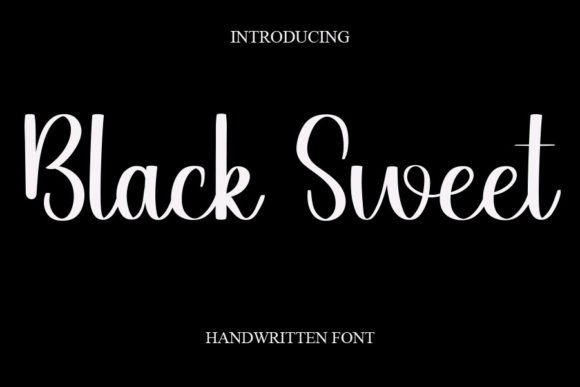
The Sweet Spot: Discovering the Charm of Black Sweet Font
I’ll never forget the time I was working on a craft project, pouring my heart and soul into creating the perfect greeting card for a friend’s birthday. I had the design all planned out, the colors picked, and the images ready to go, but something was missing – the right font. I scrolled through my font library, but nothing seemed quite right. That’s when I stumbled upon Black Sweet Font, and it instantly became the missing piece to my design puzzle. In this article, I’ll share with you why Black Sweet Font has become my go-to font for all sorts of creative projects.
A Personal Review: What I Love About Black Sweet Font
Black Sweet Font is a fun and friendly handwritten font that has captured my heart. Here are a few things I love about it:
- ✨ Playful and whimsical: Black Sweet Font has a carefree, hand-written feel that’s perfect for crafts, digital design, and presentations.
- ✅ Versatile: Whether you’re creating a greeting card, a social media post, or a presentation, this font adapts to any occasion.
- 💕 Emotional connection: The font’s friendly and approachable vibe helps create an instant emotional connection with your audience.
While Black Sweet Font is an amazing addition to my font library, it’s not perfect. Here are a few things to keep in mind:
- 🤔 Legibility at small sizes: Like many handwritten fonts, Black Sweet can get a bit tricky to read at very small sizes. Make sure to test it out before committing to a specific size.
- ⚠️ Limited formal use: Due to its playful nature, Black Sweet Font might not be the best choice for formal documents or professional reports.
- Experiment with OpenType features like stylistic alternates to add some extra flair to your design.
- Explore the glyphs panel to discover alternative characters and diacritical marks.
The Story Behind Black Sweet Font
Black Sweet Font was designed with the intention of creating a friendly, approachable font that would bring a smile to people’s faces. The designer aimed to craft a font that would be perfect for everyday use, from crafts to digital design. And I think they succeeded!
| Font Name | Black Sweet Font |
| Author | salma studio |
| Is Black Sweet Font available in different weights or styles? | Currently, Black Sweet Font comes in a single weight, but its versatility and range of OpenType features make it adaptable to various design needs. |
In conclusion, Black Sweet Font is a delightful addition to any design project. Its playful, friendly vibe and versatility make it a go-to font for crafts, digital design, and presentations. Give it a try and see why it’s become my favorite font for all sorts of creative endeavors!